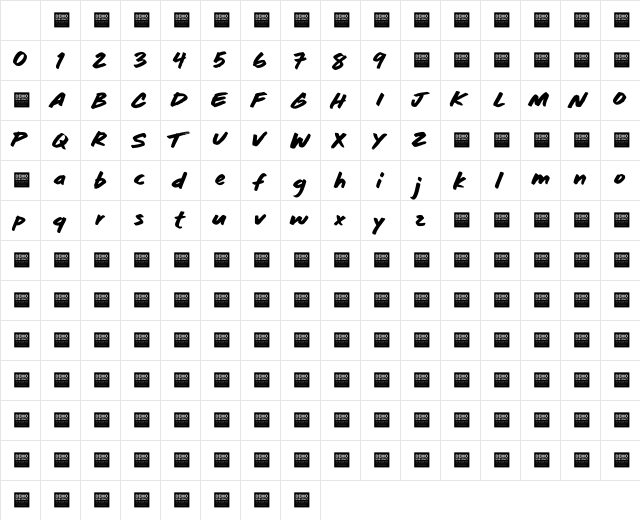
Complete Game Time - Demo Regular glyph index. Displaying only characters natively supported by Game Time - Demo Regular font.
Game Time - Demo is a composed and adaptable typeface that performs quietly and consistently across a wide range of design contexts.